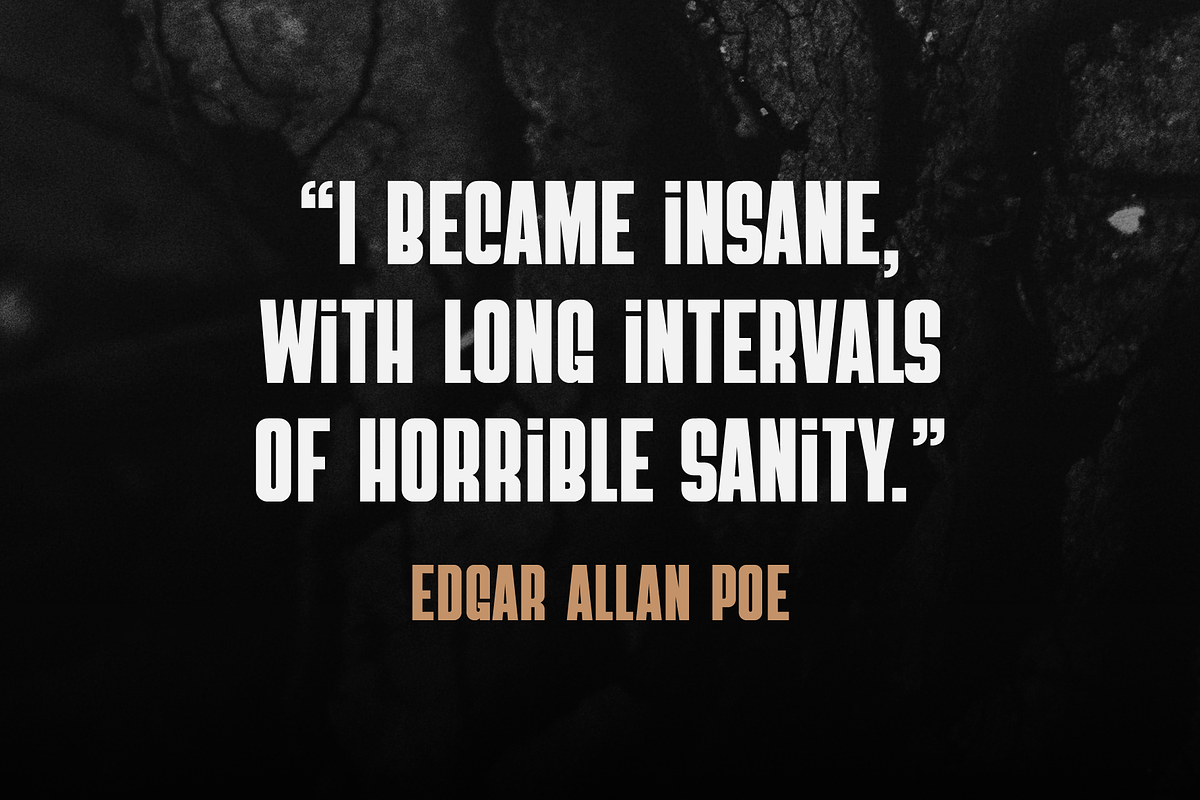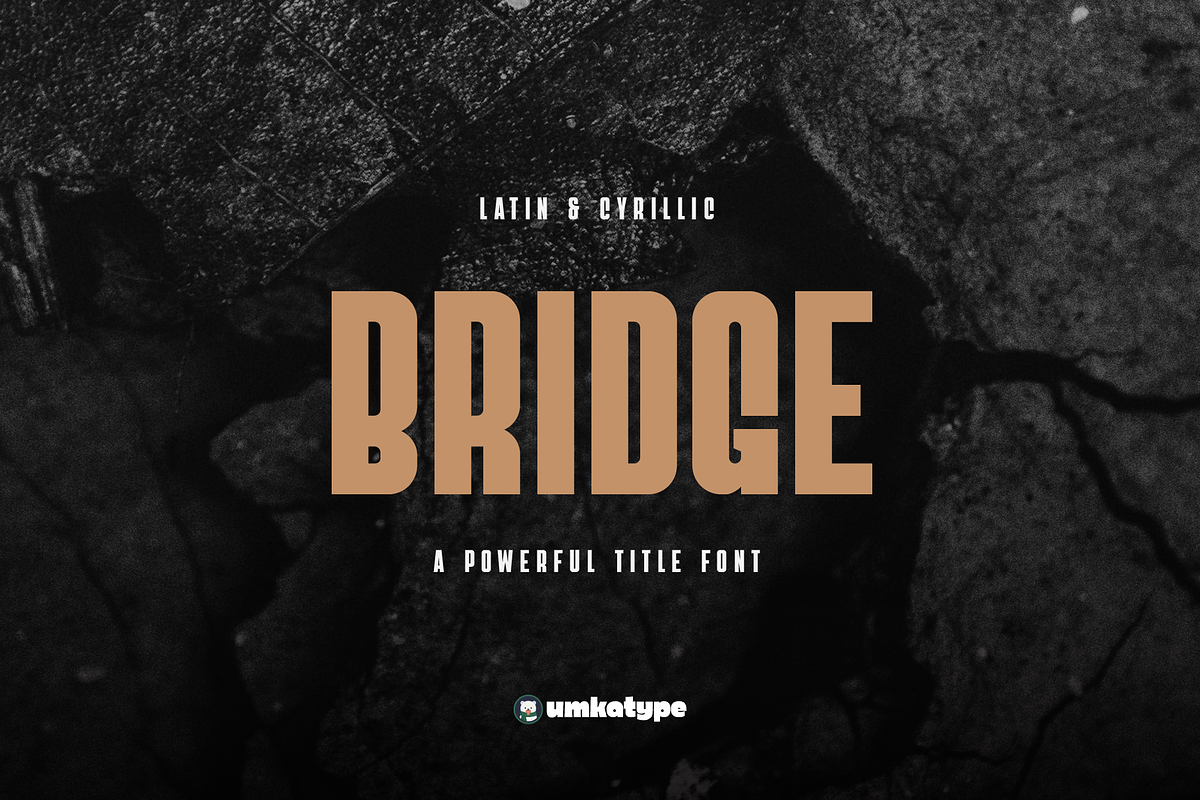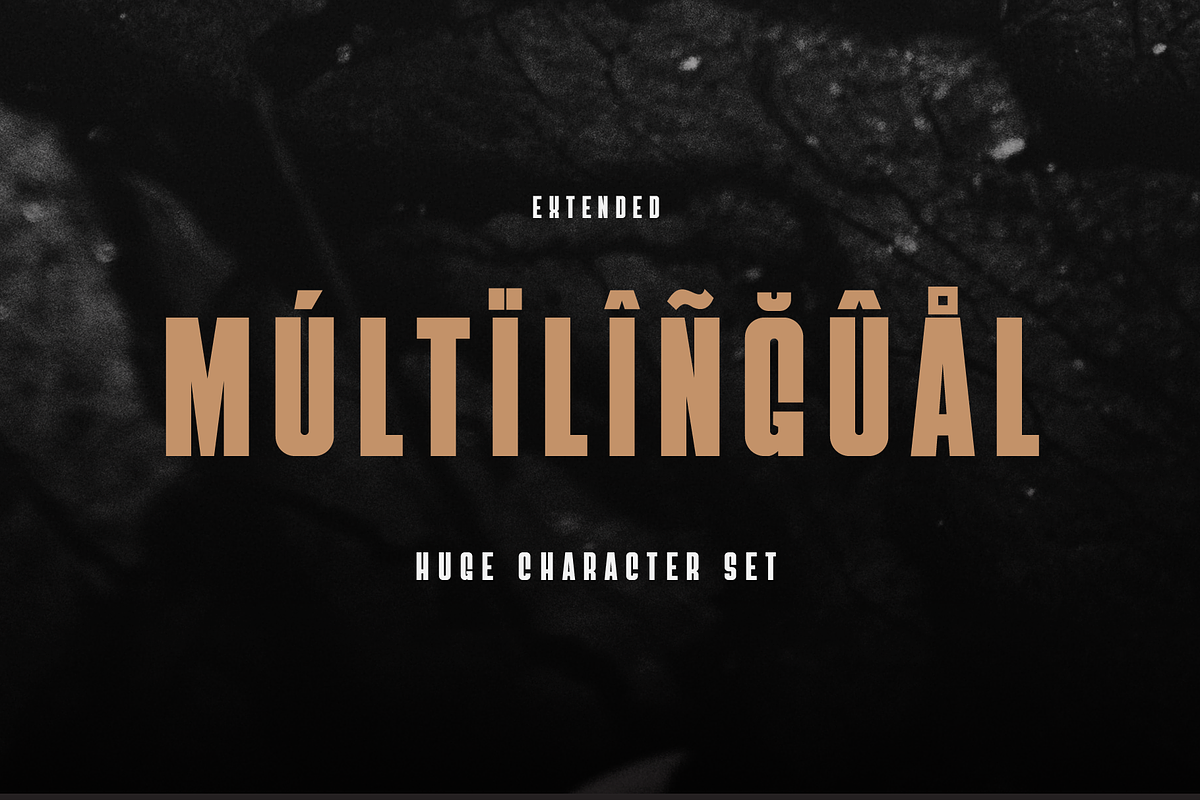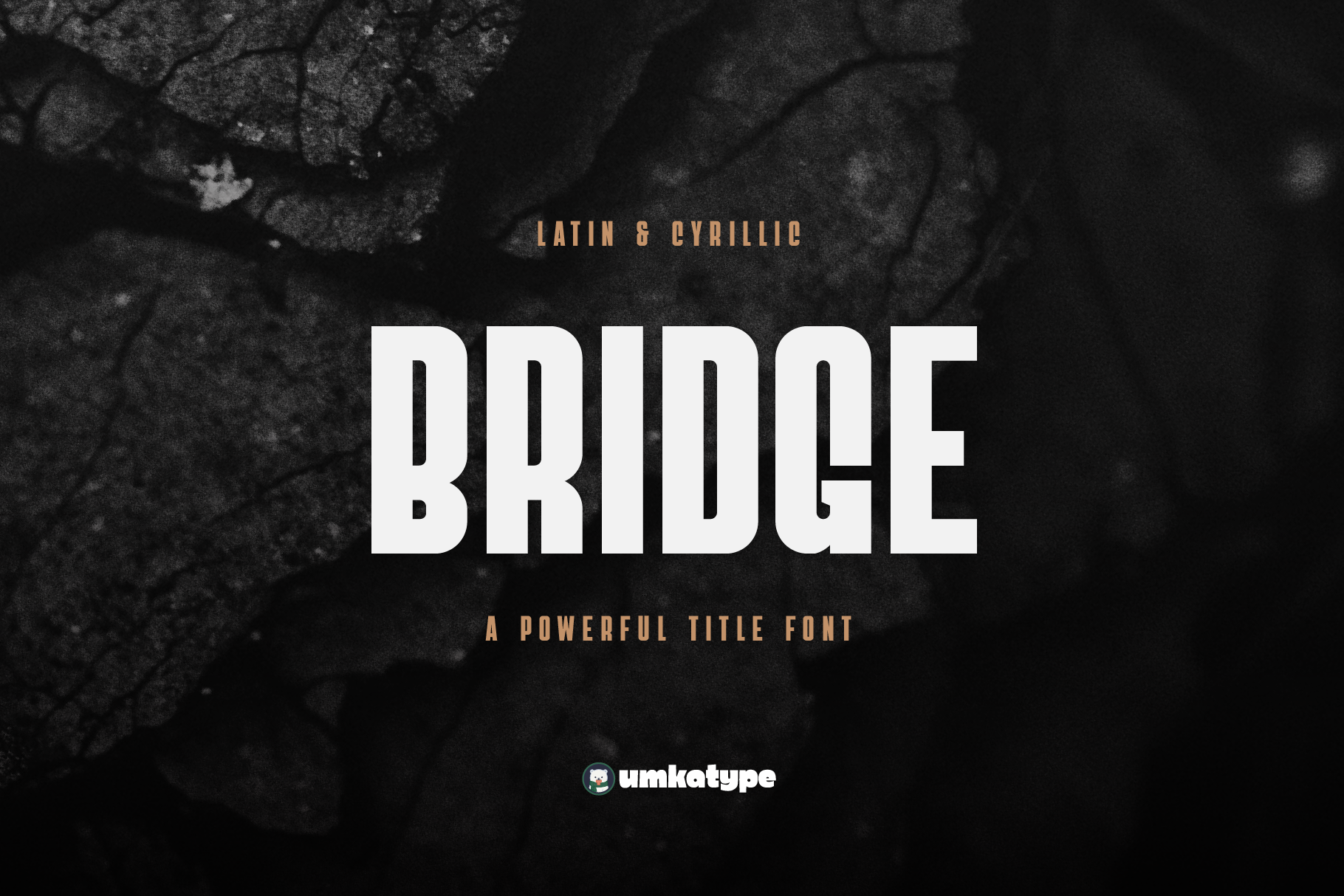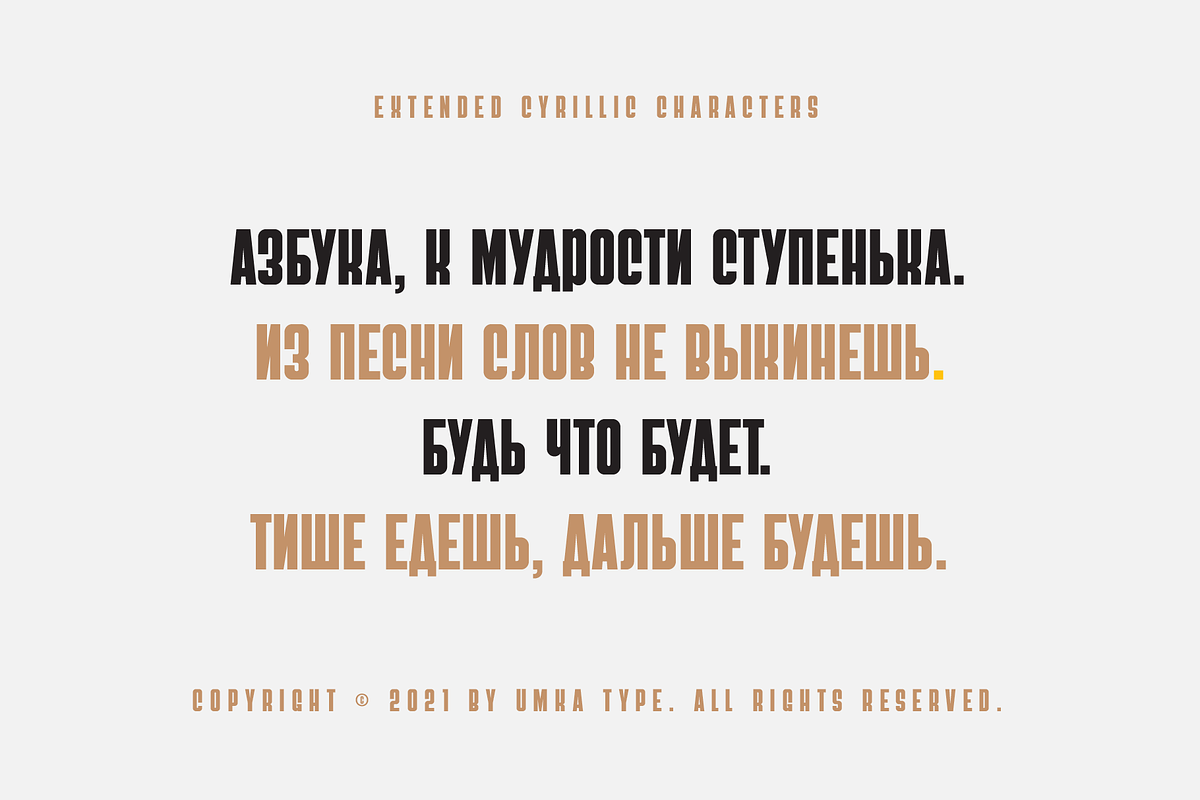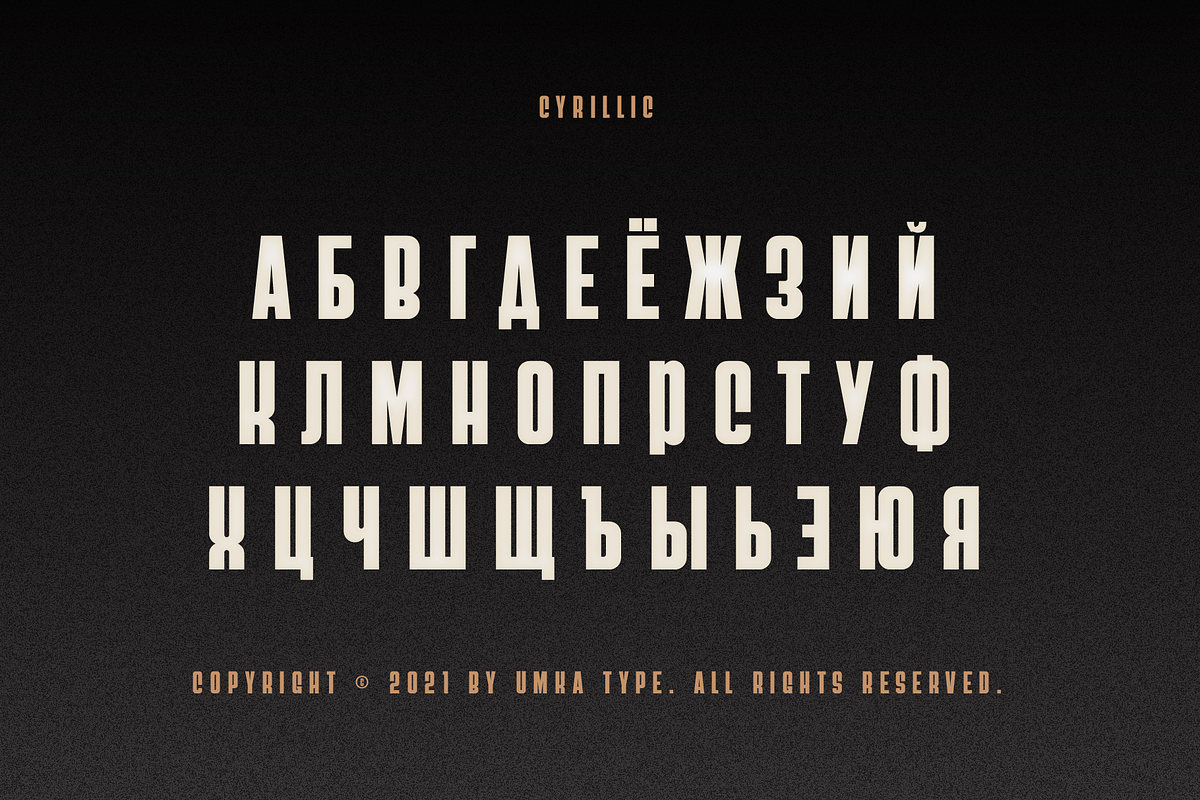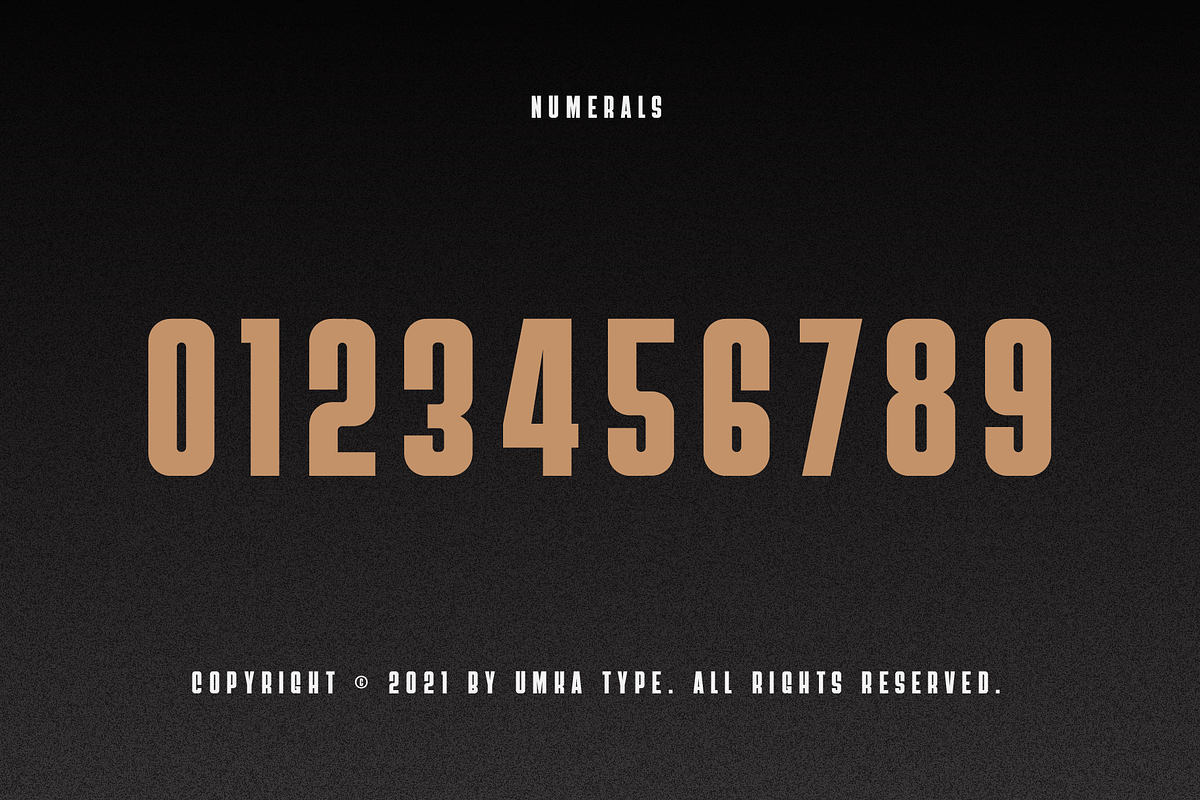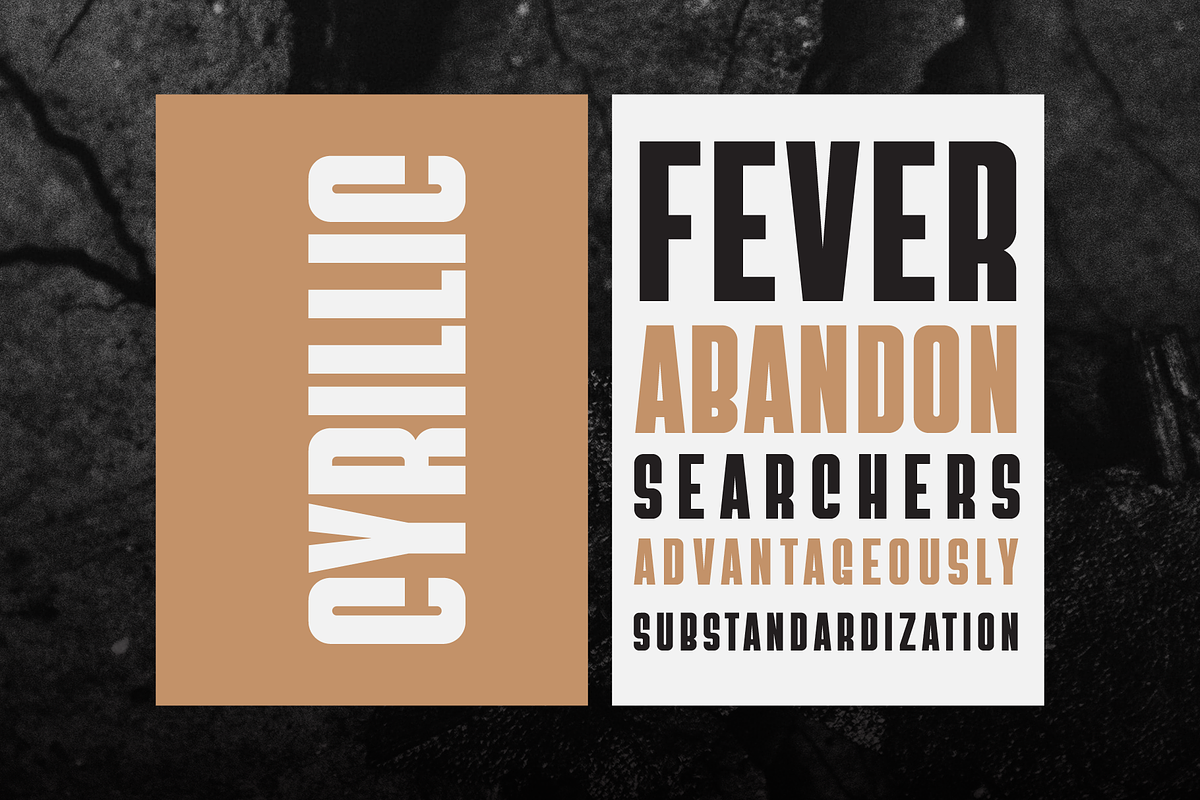
Bridge Logo Font
Bridge - A Sans Serif Font for powerful titles.
- Bridge is a carefully crafted font.
- Multilingual: It has Extended Latin and Extended Cyrillic letters.
Bridge created for posters, web design, branding and social media works.